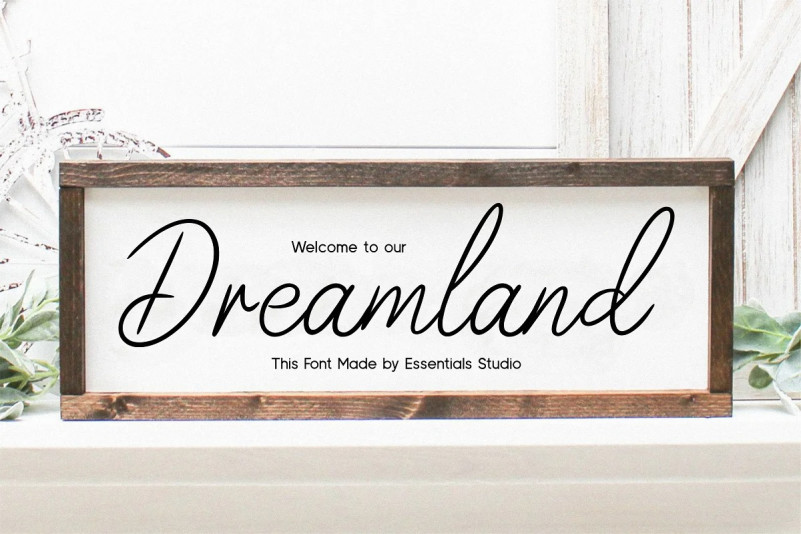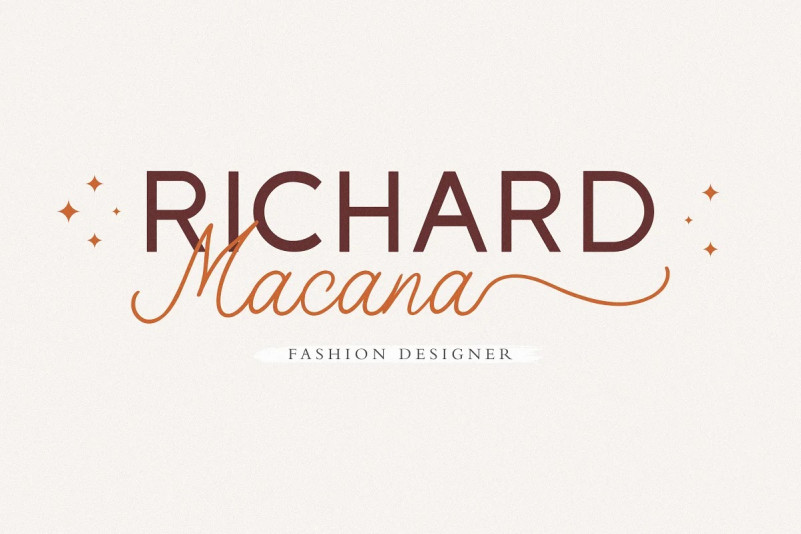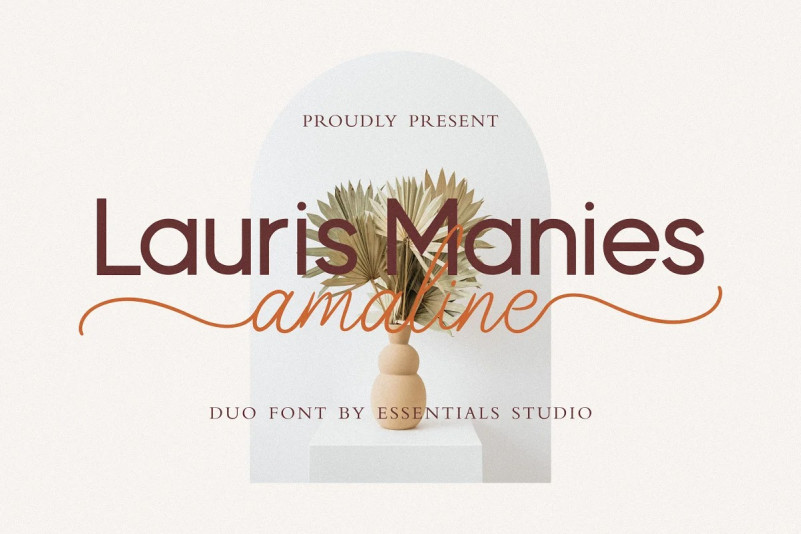
Lauris Manies Amaline Font
Lauris Manies And Amaline – Duo Font Is a Sans Font and Monoline Long Tail Font With Swash and Ligature
Lauris Manies And Amaline is perfect for product packaging, branding project, megazine, social media, wedding, or just used to express words above the background.